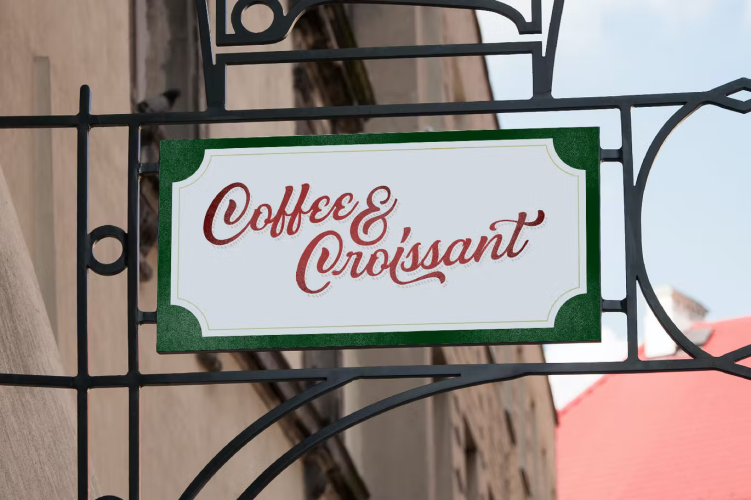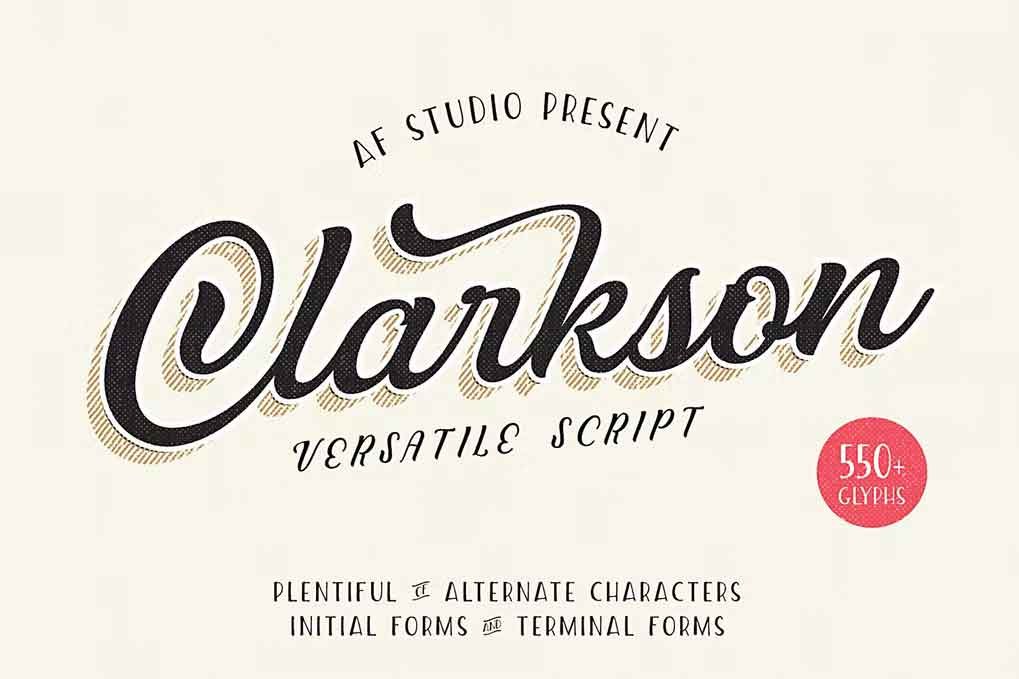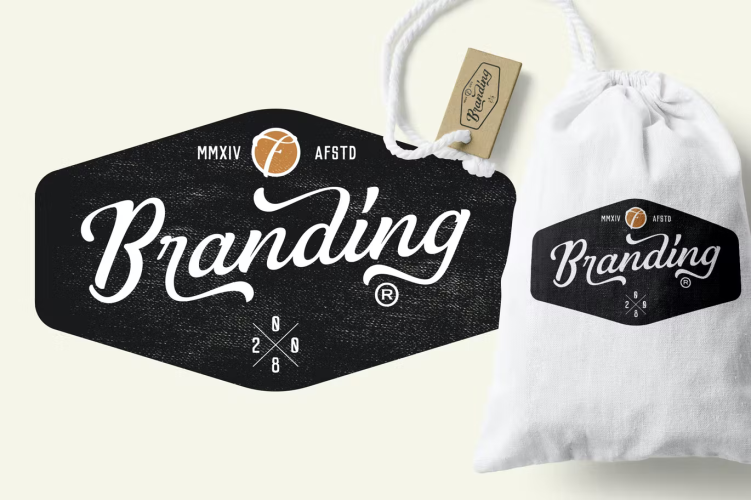
Clarkson Script Font
Brand new stylish versatile fonts ! In collaborating with Albion Room. Fresh from the oven as inspired to create easy digital lettering for you. Characters included more than 550+, check the display no 3. Also comes with lots of alternate characters lowercase and uppercase, ligatures, setting up for easy use on the initial and terminal forms. It will be great for Logotypes, Posters, Digital Lettering Arts, Clean design, Branding Design, Sign, etc.
Where Clarkson Script Font works best
Clarkson Script Font brings a personal, handwritten warmth to invitations, menus and place cards.
Craft brands — coffee, cosmetics, bakery — use scripts like Clarkson Script Font for signature-style logos and labels.
Pair Clarkson Script Font with a plain sans for quotes, stories and Pinterest pins that feel handmade.
What is Clarkson Script Font good for?
Clarkson Script Font is a Script And Handwritten typeface tagged Branding, Clean, Display, Poster. It works well for headlines, logos, posters, social media graphics and branding projects that need a distinctive script and handwritten look.